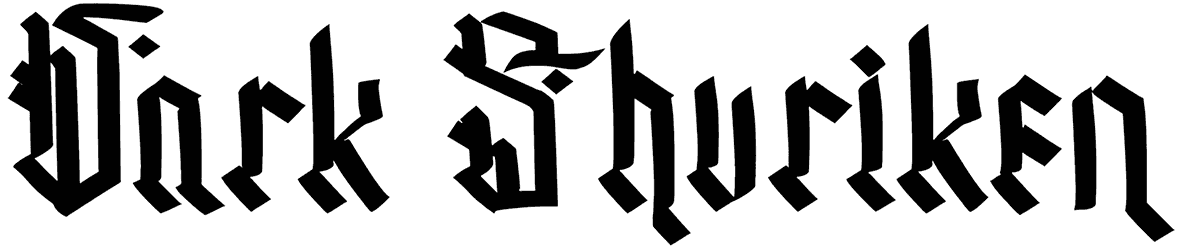
Dark Shuriken Font
Come on to nail down this classic Dark Shuriken font that has all the valuable earmark letters for free! Amazed? Use its complete characters and polish up many illustrations, especially movie titles, posters, music albums, and much more.